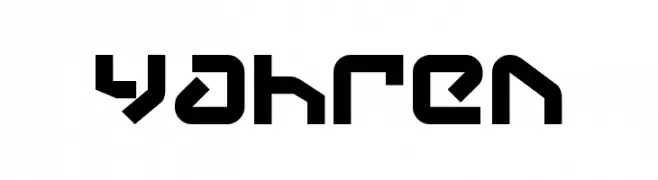
• Yahren Bold Italic
A bold, italicized font with a futuristic, angular design.
• Yahren
A bold, geometric font with angular shapes and a futuristic style.